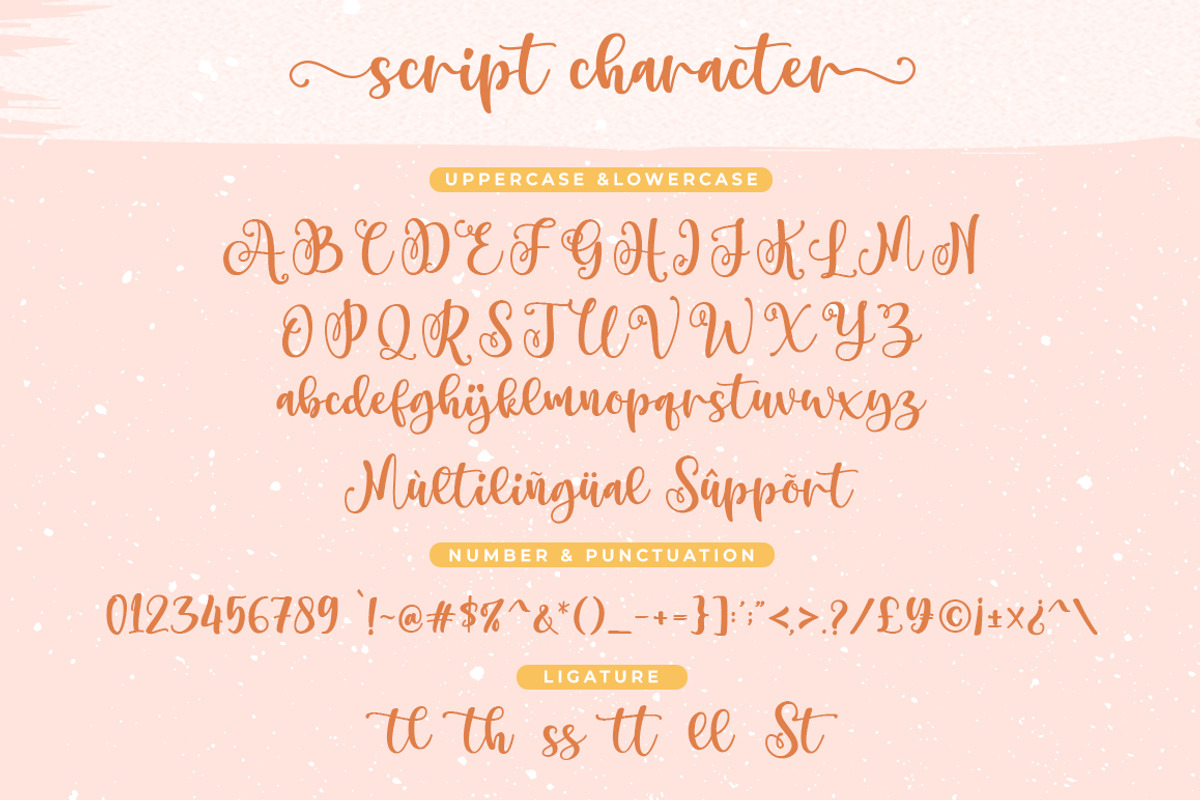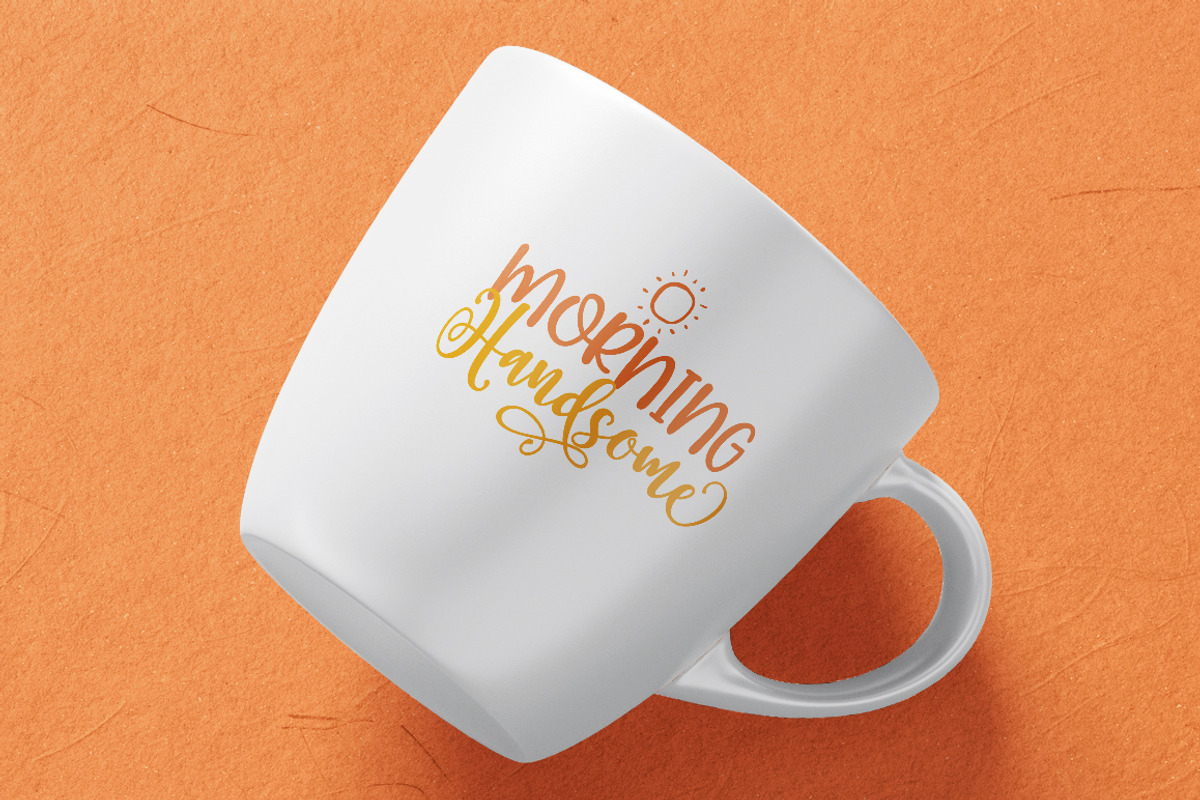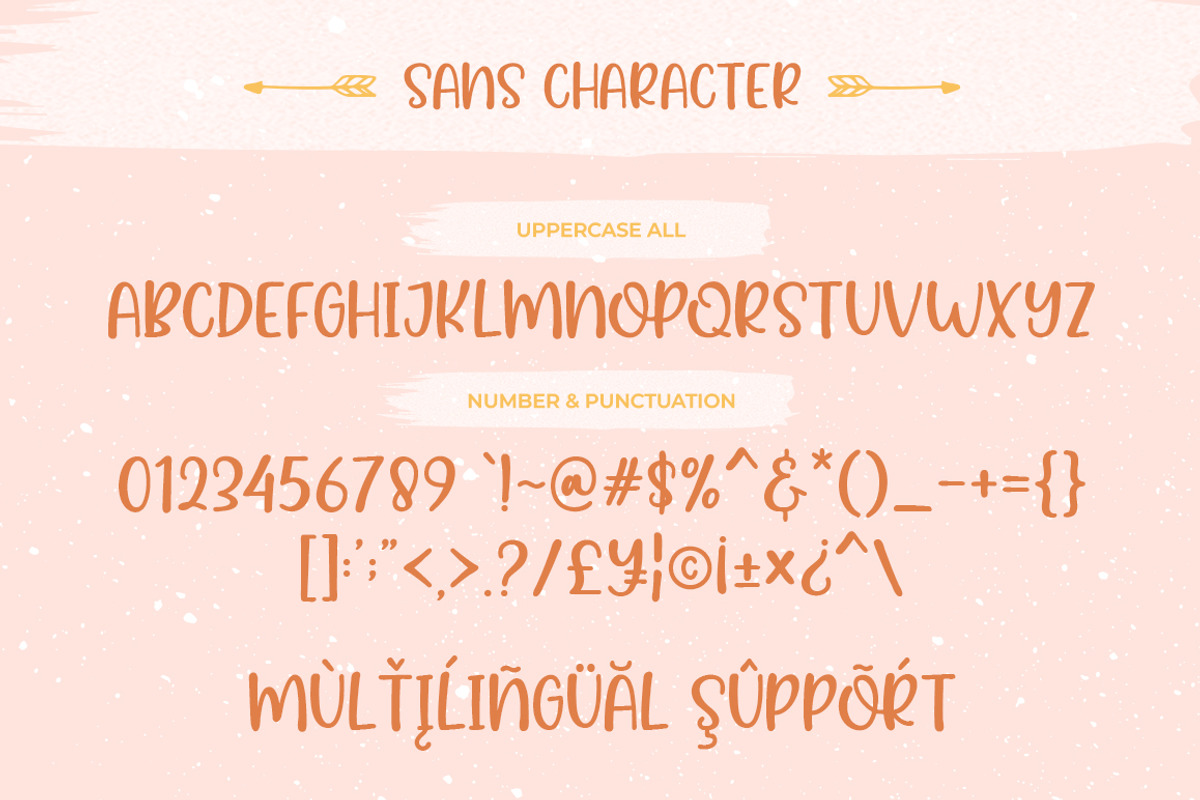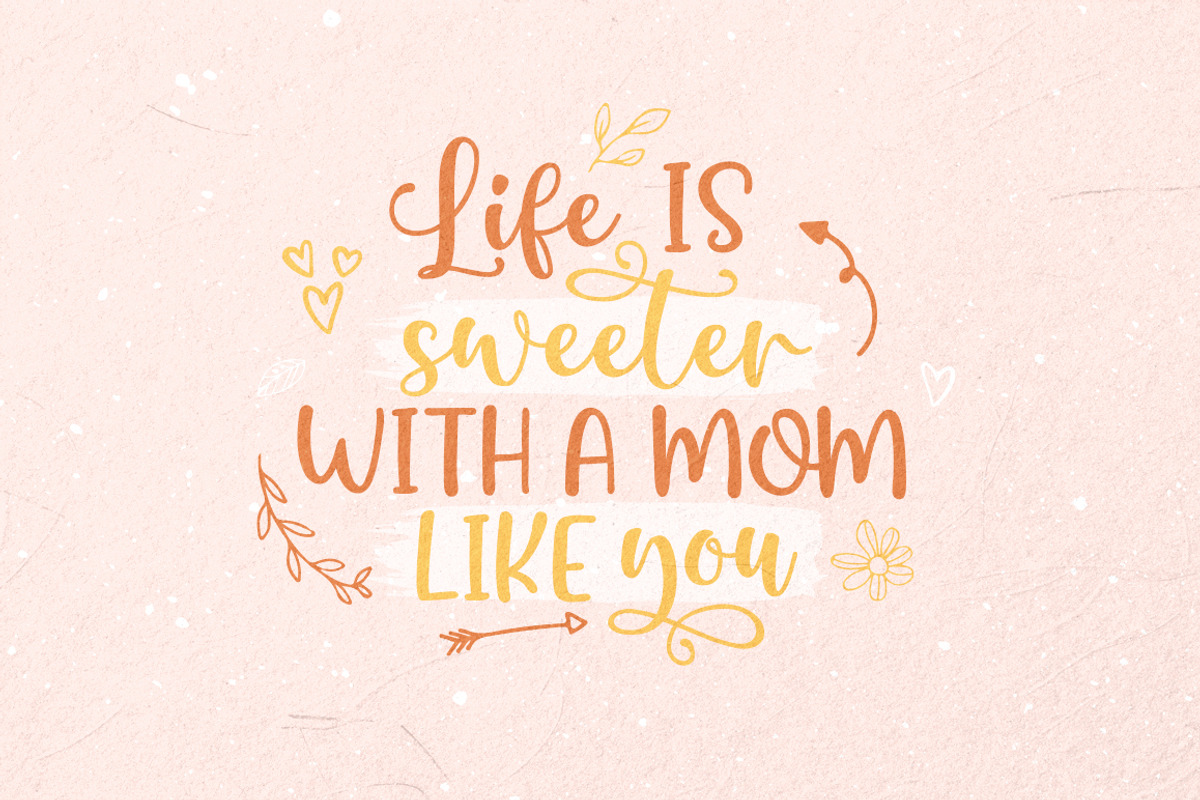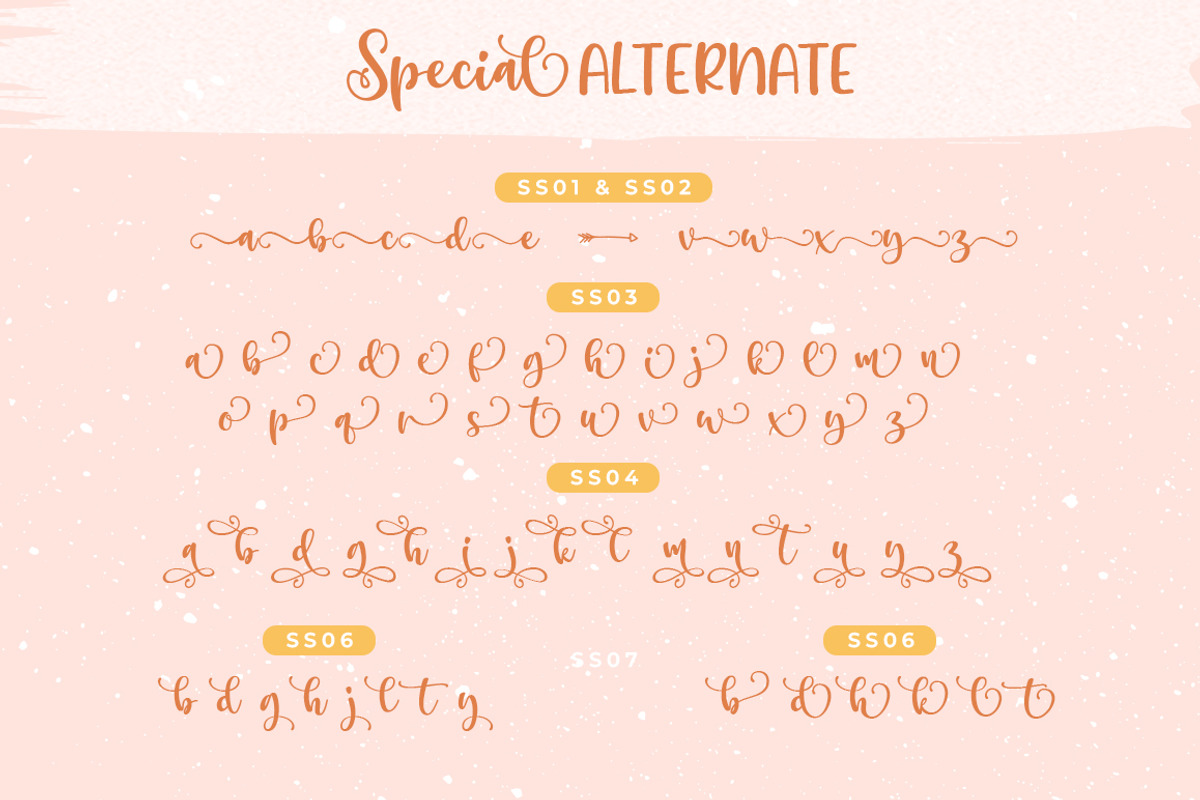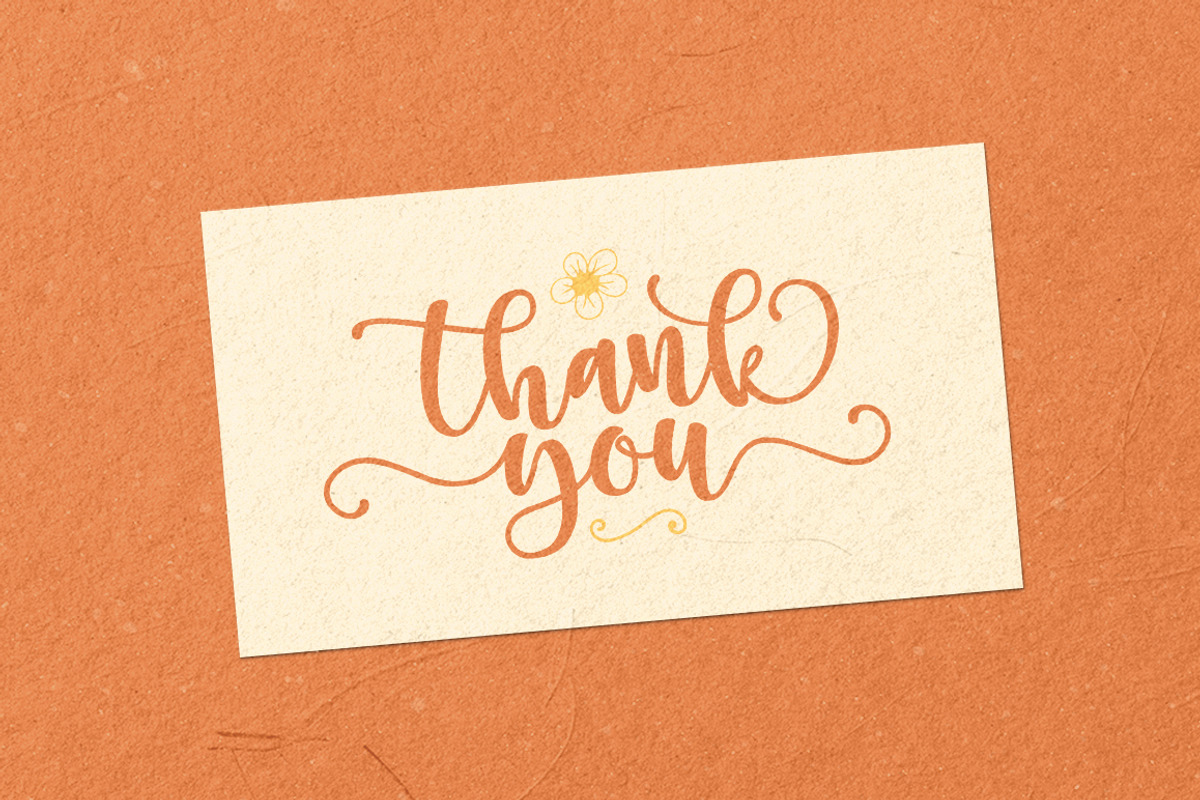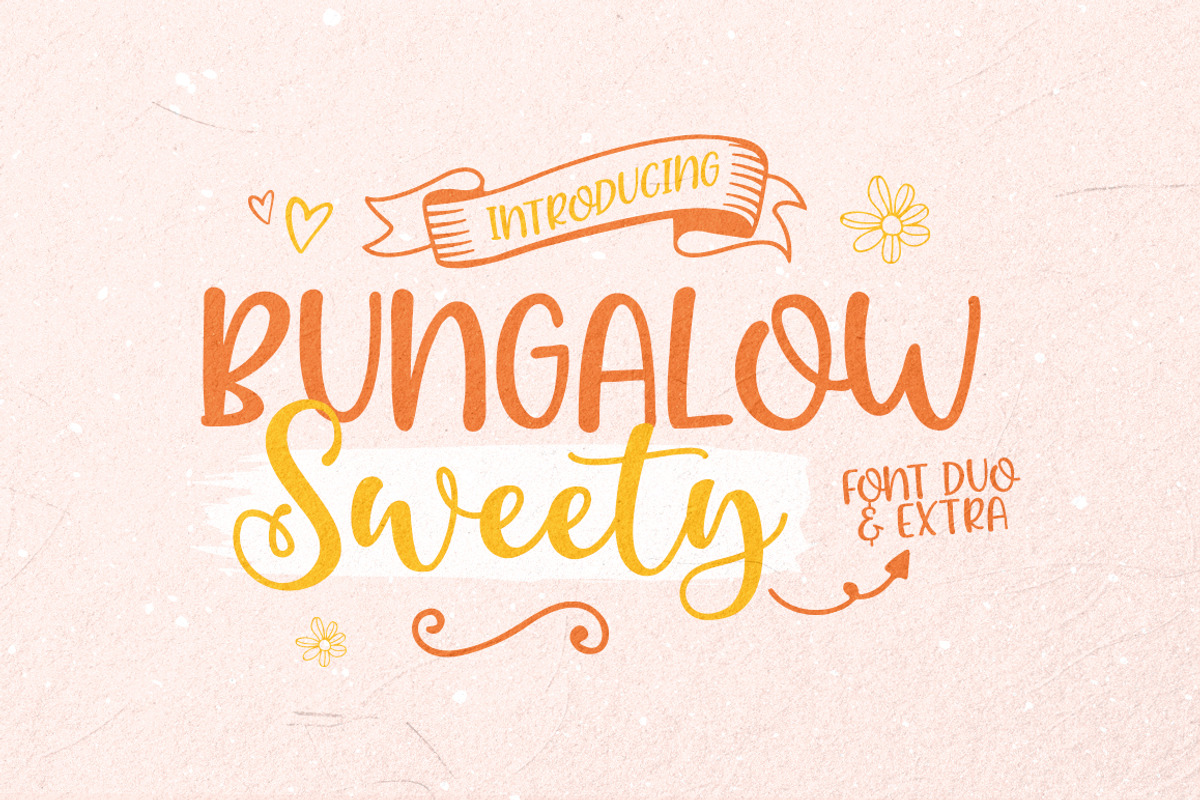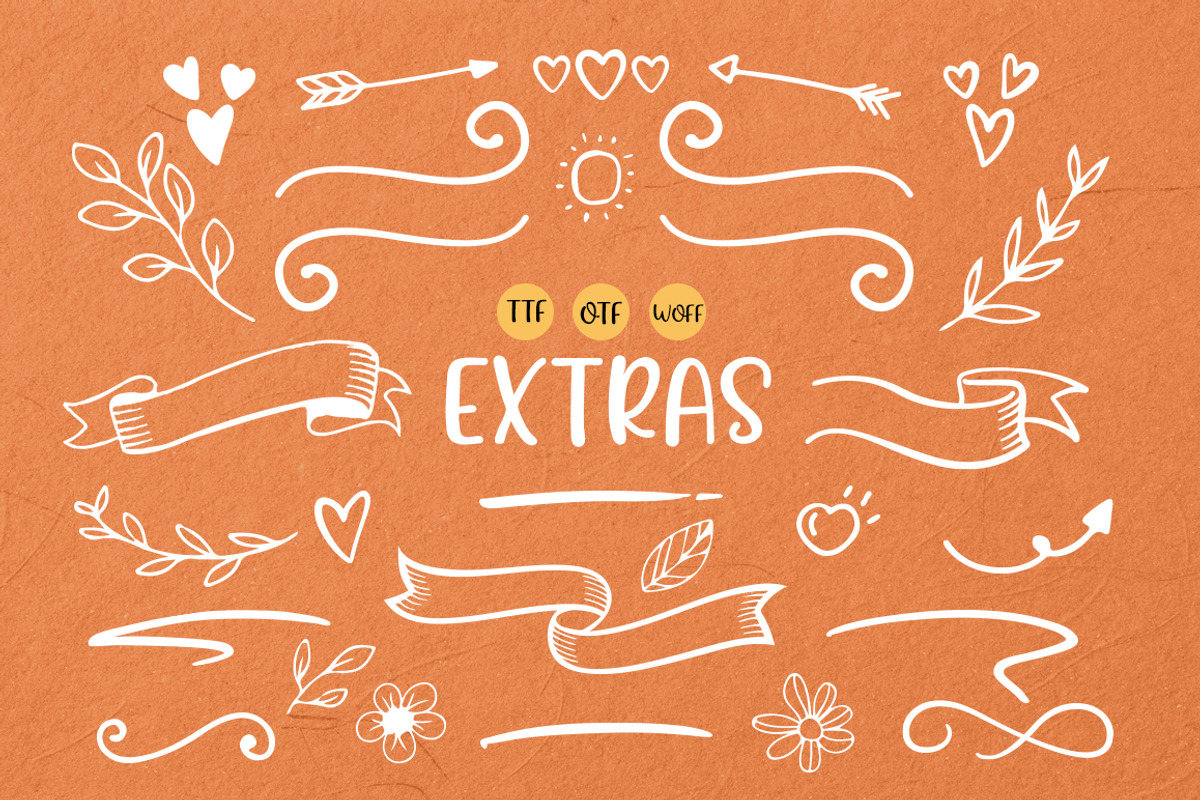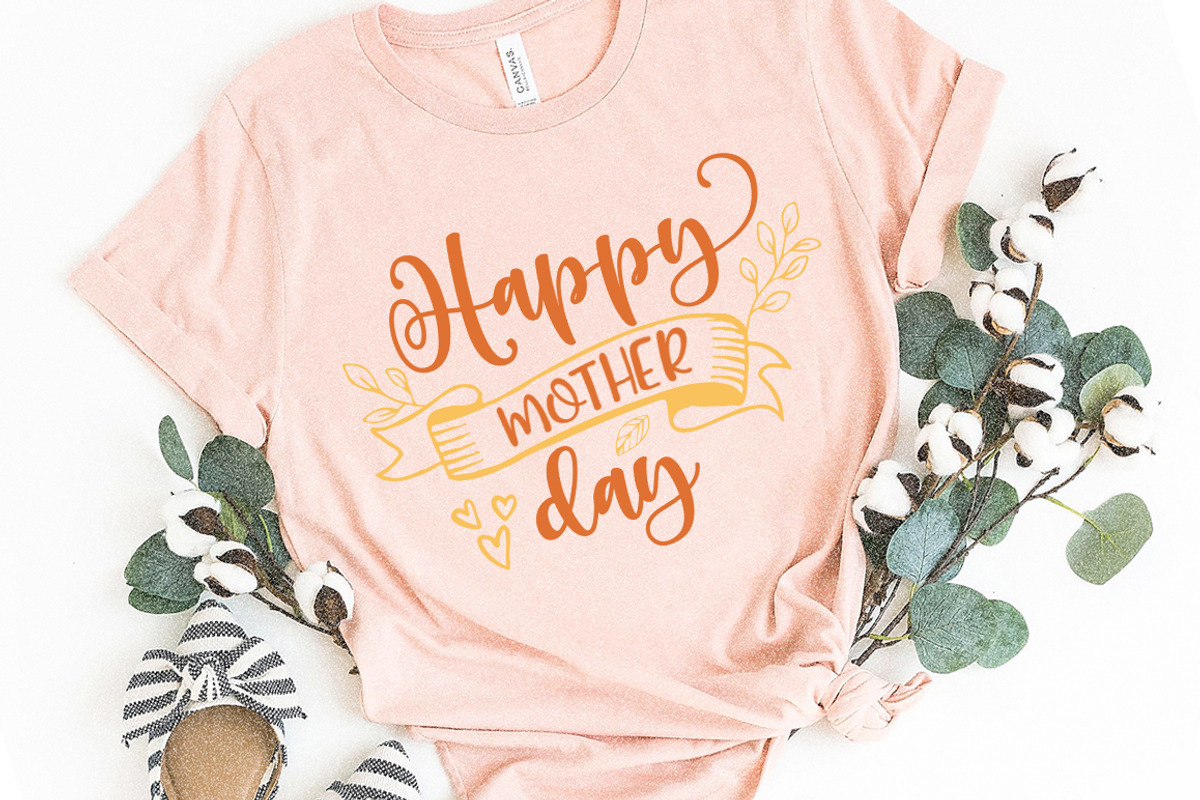
Bungalow Sweety Duo and Extras
Bungalow Sweety Duo and Extras is a script font with lots of alternative lowercase glyphs plus a complementary font ( Sans ) and lots of cliparts in format ttf & otf. This font has a beautiful and balanced character, making it suitable for a variety of purposes. such as posters, wedding invitations, logos, product packaging, branding, titles, signs, labels, mugs, book covers, quotes, and other